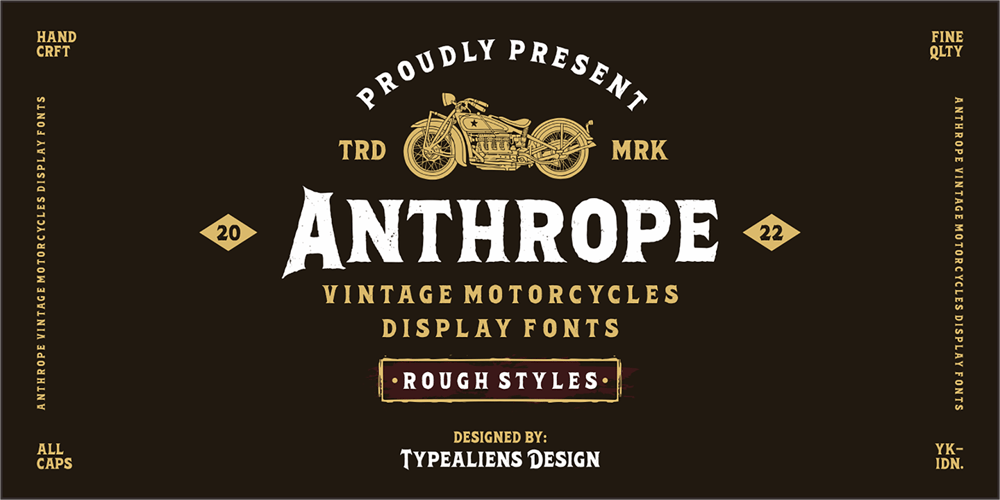
Anthrope Font Family was designed by Ilham Wahyu and published by Ilhamtaro. Anthrope contains 1 styles and family package options. ANTHROPE is a serif font with a grunge style so it feels like a retro font, with a thick body that makes this font very manly. This font is perfect for designs related to male hobbies such as motorbikes. Besides that, this font is an all caps font, so this will add to the manly impression. All caps here still have the difference between Uppercase and Lowercase, which have different heights and different letter shapes.To enable the OpenType Stylistic alternates, you need a program that supports OpenType features such as Adobe Illustrator CS, Adobe Indesign & CorelDraw X6-X7. Guides to access all alternates glyphs : http://adobe.ly/1m1fn4YCheers!